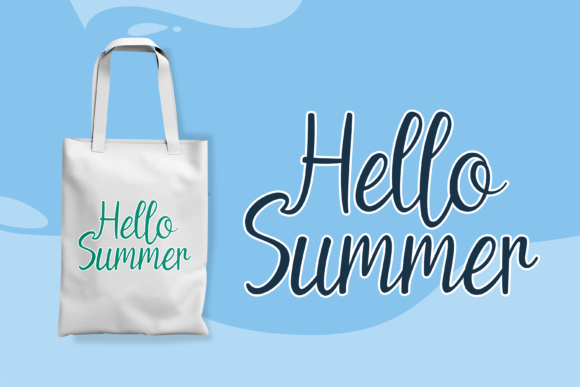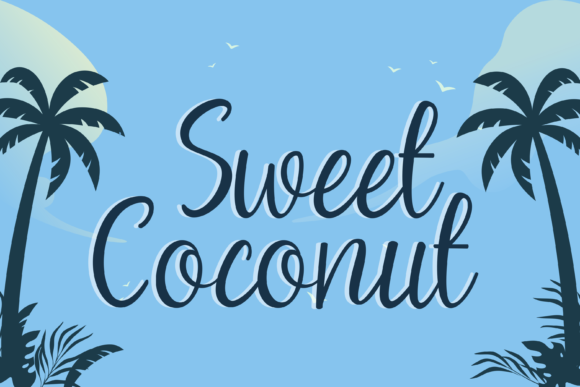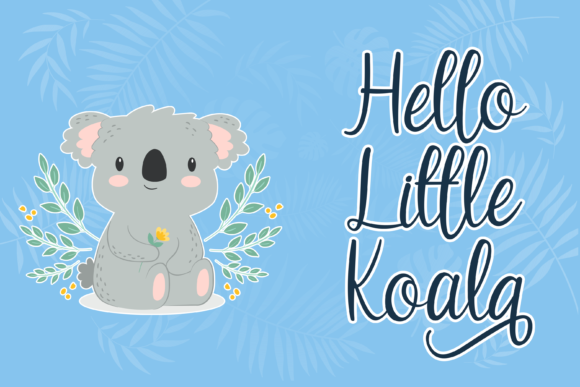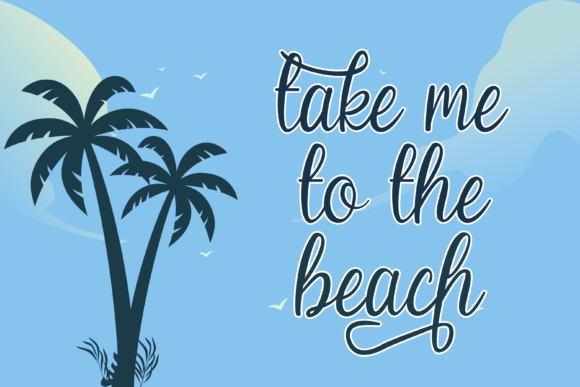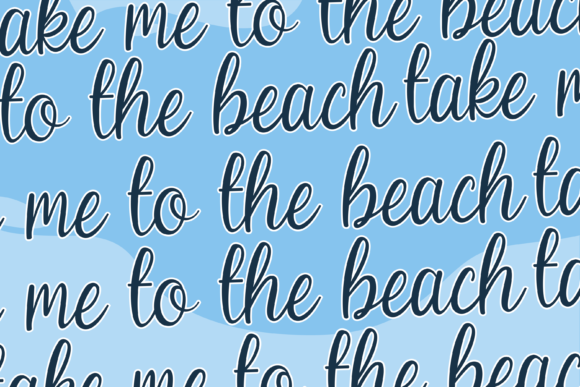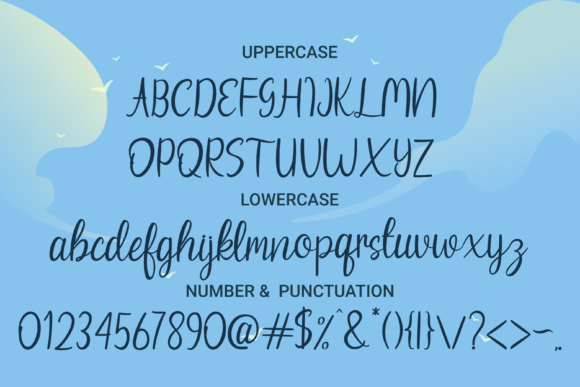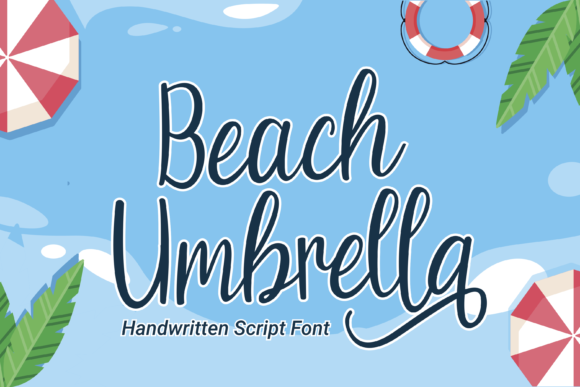
Introducing Beach Umbrella Font: The Perfect Addition to Your Design Arsenal
Are you tired of using the same old fonts for your designs? Look no further! Beach Umbrella Font is a beautiful, handwritten font that is sure to elevate your designs to the next level. With its elegant and modern look, this font is perfect for a wide range of applications, from logos and branding to invitations, stationery, wedding designs, social media posts, and more!
A Cute and Versatile Font
Beach Umbrella Font is a cute and versatile font that is designed to add a touch of personality to your designs. Its handwritten style gives it a unique and approachable feel that is sure to resonate with your audience. Whether you’re designing for a client or creating something for your own brand, this font is sure to make your designs stand out.
Elegant and Modern Look
One of the standout features of Beach Umbrella Font is its elegant and modern look. The font’s clean lines and sophisticated style make it perfect for designs that require a touch of sophistication. At the same time, its playful and whimsical feel ensures that it remains approachable and fun.
Beach Umbrella Font is an incredibly versatile font that can be used for a wide range of applications. Here are just a few ideas to get you started:
- Logos and Branding: Use Beach Umbrella Font to create a unique and memorable logo for your brand. Its elegant and modern look makes it perfect for businesses that want to appear sophisticated and professional.
- Invitations and Stationery: Add a touch of personality to your invitations and stationery with Beach Umbrella Font. Its handwritten style makes it perfect for weddings, parties, and other special occasions.
- Wedding Designs: Beach Umbrella Font is a popular choice for wedding designs, including wedding invitations, programs, and signage. Its elegant and romantic feel makes it perfect for the big day.
- Social Media Posts: Use Beach Umbrella Font to add a touch of personality to your social media posts. Its playful and whimsical feel makes it perfect for creating engaging and shareable content.
Why Choose Beach Umbrella Font?
So why choose Beach Umbrella Font for your designs? Here are just a few reasons:
- Unique and Memorable: Beach Umbrella Font is a unique and memorable font that is sure to make your designs stand out.
- Elegant and Modern: Its elegant and modern look makes it perfect for designs that require a touch of sophistication.
- Versatile: Beach Umbrella Font can be used for a wide range of applications, from logos and branding to invitations and social media posts.
- Easy to Read: Despite its elegant and modern look, Beach Umbrella Font is easy to read and understand, making it perfect for designs that require a clear and concise message.
Tips for Using Beach Umbrella Font
Here are a few tips for using Beach Umbrella Font in your designs:
- Use it Sparingly: Beach Umbrella Font is a bold and eye-catching font, so use it sparingly to avoid overwhelming your design.
- Pair it with Other Fonts: Beach Umbrella Font pairs well with other fonts, so don’t be afraid to experiment with different combinations.
- Experiment with Colors: Beach Umbrella Font looks great in a variety of colors, so experiment with different colors to find the one that works best for your design.
Beach Umbrella Font is a beautiful and versatile font that is sure to elevate your designs to the next level. With its elegant and modern look, this font is perfect for a wide range of applications, from logos and branding to invitations, stationery, wedding designs, social media posts, and more! So why wait? Download Beach Umbrella Font today and start creating stunning designs that will leave a lasting impression on your audience.